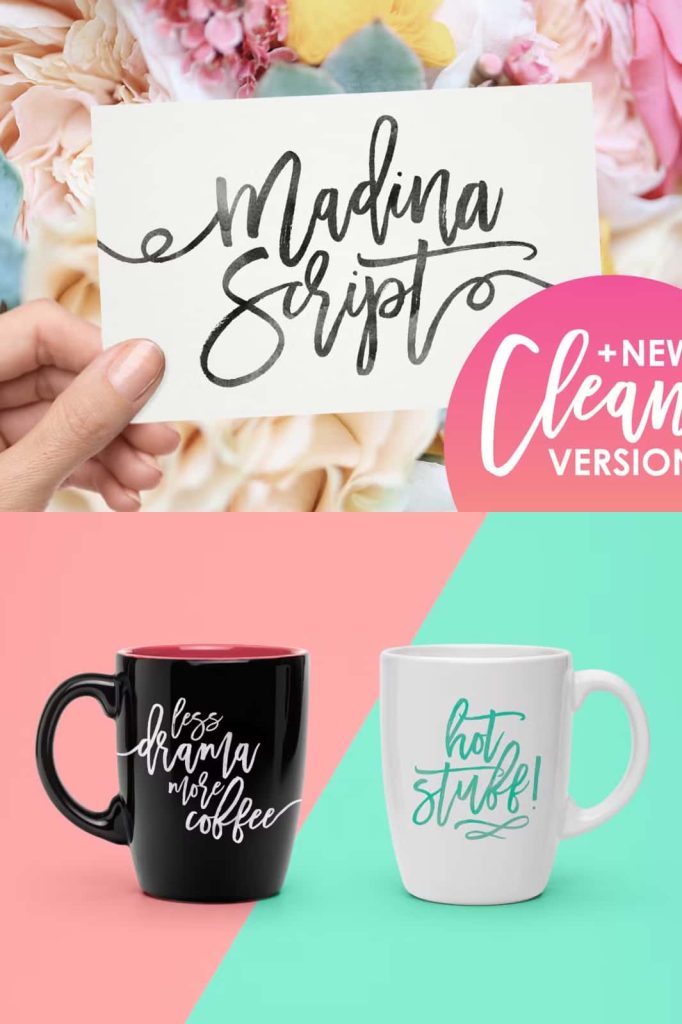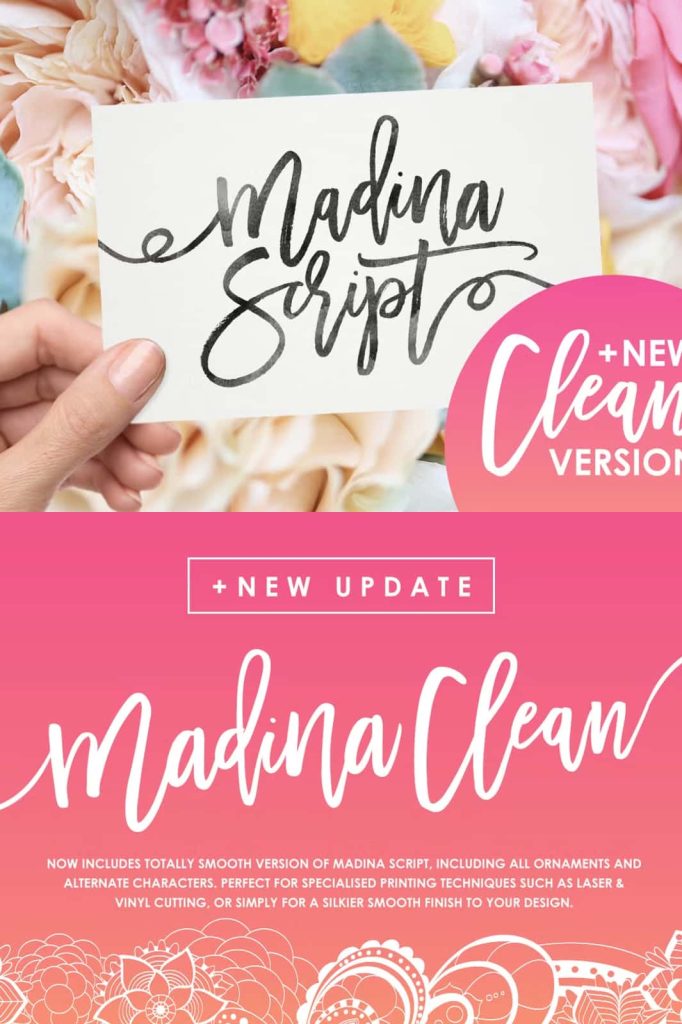
Madina Script (New Update)leastedMarch 19, 2025Fonts Thanks for checking out Madina Script! A fabulously fun yet elegant script font with tons of energy Download